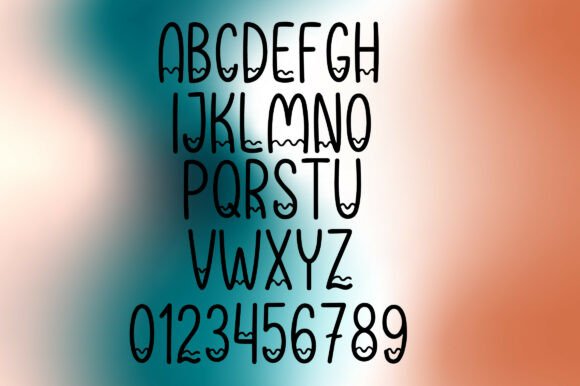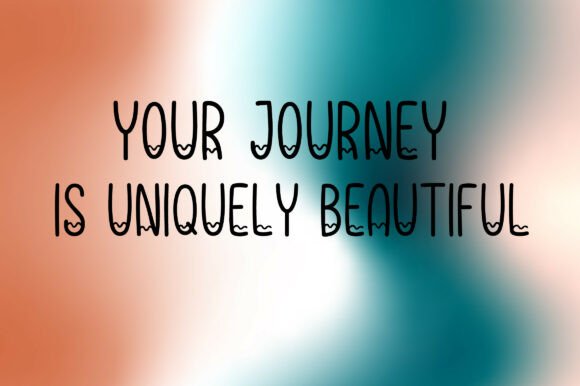
Dream Big Font: The Perfect Choice for Playful and Whimsical Designs
Are you looking for a font that can add a touch of playfulness and whimsy to your designs? Look no further than the Dream Big Font. This tall, playful display font is perfect for kids’ designs, quotes, branding, posters, and creative projects. In this article, we’ll take a closer look at the Dream Big Font and explore its features, benefits, and uses.
What is Dream Big Font?
Dream Big Font is a clean handwritten font with a light, friendly, and whimsical style. Its tall letters and cute wavy details make it perfect for designs that require a playful touch. The font is designed to be easy to read and versatile, making it suitable for a wide range of projects.
Key Features of Dream Big Font
- Tall and Playful Letters: The Dream Big Font features tall letters that are perfect for headlines, titles, and quotes.
- Clean Handwritten Look: The font has a clean handwritten look that gives it a friendly and approachable feel.
- Cute Wavy Details: The font’s wavy details add a touch of whimsy and playfulness to any design.
- Light and Friendly Style: The font’s light and friendly style makes it perfect for kids’ designs, branding, and posters.
Benefits of Using Dream Big Font
The Dream Big Font offers several benefits for designers and crafters. Here are a few:
- Easy to Read: The font is designed to be easy to read, making it perfect for designs that require a clear and concise message.
- Versatile: The font is versatile and can be used for a wide range of projects, from kids’ designs to branding and posters.
- Unique and Creative: The font’s playful and whimsical style makes it perfect for designers and crafters who want to add a unique touch to their designs.
Uses of Dream Big Font
The Dream Big Font is perfect for a variety of projects, including:
- Kids’ Designs: The font is perfect for kids’ designs, such as children’s books, posters, and flyers.
- Quotes and Posters: The font’s tall letters and cute wavy details make it perfect for quotes and posters.
- Branding: The font’s light and friendly style makes it perfect for branding, such as logos and business cards.
- Creative Projects: The font is perfect for creative projects, such as scrapbooking, card making, and DIY projects.
Tips for Using Dream Big Font
Here are a few tips for using the Dream Big Font:
- Use it for Headlines and Titles: The font is perfect for headlines and titles, so use it to add a touch of playfulness to your designs.
- Pair it with Other Fonts: The font pairs well with other fonts, so feel free to experiment with different combinations.
- Use it for Kids’ Designs: The font is perfect for kids’ designs, so use it to add a touch of whimsy and playfulness to your projects.
The Dream Big Font is a versatile and playful font that is perfect for designers and crafters who want to add a touch of whimsy and playfulness to their designs. Its light, friendly, and whimsical style makes it perfect for kids’ designs, quotes, branding, posters, and creative projects. With its easy-to-read letters and cute wavy details, the Dream Big Font is a great choice for anyone looking for a unique and creative font.